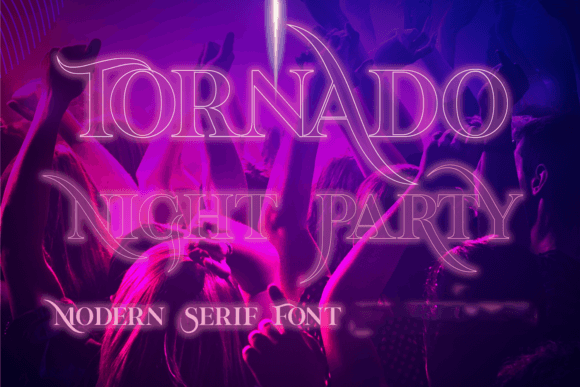
Prepare yourself for the electrifying Tornado Night Party font, a typographic masterpiece that will ignite your designs with its captivating serif strokes and boundless versatility. Crafted with meticulous precision by the renowned 177Studio, this font is a symphony of elegance and intrigue, ready to elevate your creative endeavors to new heights.
Unleash the raw energy of Tornado Night Party and watch as your words dance across the page with unparalleled grace and impact. Its distinctive serifs add a touch of sophistication, while its flowing curves evoke a sense of fluidity and motion. Whether you're crafting stunning logos, eye-catching headlines, or captivating social media posts, Tornado Night Party will effortlessly command attention and leave a lasting impression.
Step into a world of boundless creativity with Tornado Night Party. Its adaptability knows no limits, seamlessly blending with a vast array of design styles and themes. From vintage-inspired projects to cutting-edge contemporary creations, this font possesses the remarkable ability to transform your ideas into visual masterpieces.
Indulge in the limitless possibilities that Tornado Night Party offers. Its versatility extends beyond aesthetics; it empowers you to convey emotions and messages with unparalleled clarity and impact. Whether you seek to evoke a sense of nostalgia, intrigue, or sheer exuberance, this font will become your trusted ally in delivering your message with unwavering impact.
Join the creative revolution and embrace Tornado Night Party today. Let its captivating strokes ignite your imagination and witness the transformative power it holds. From personal projects to professional endeavors, Tornado Night Party will elevate your designs to new heights of excellence, leaving an unforgettable mark on your audience.